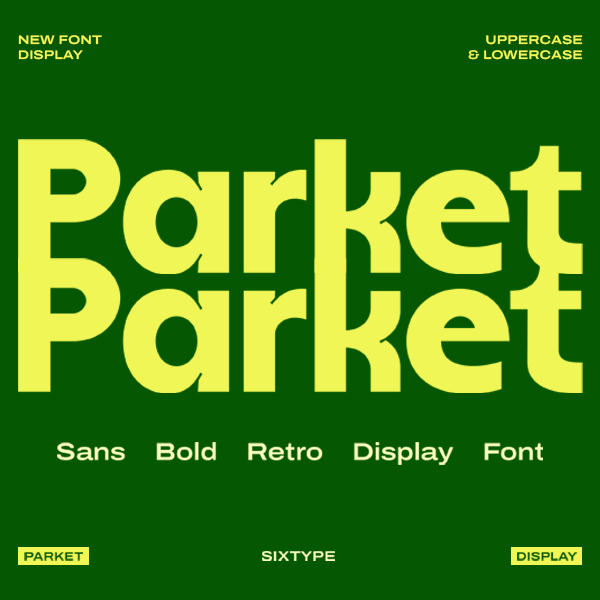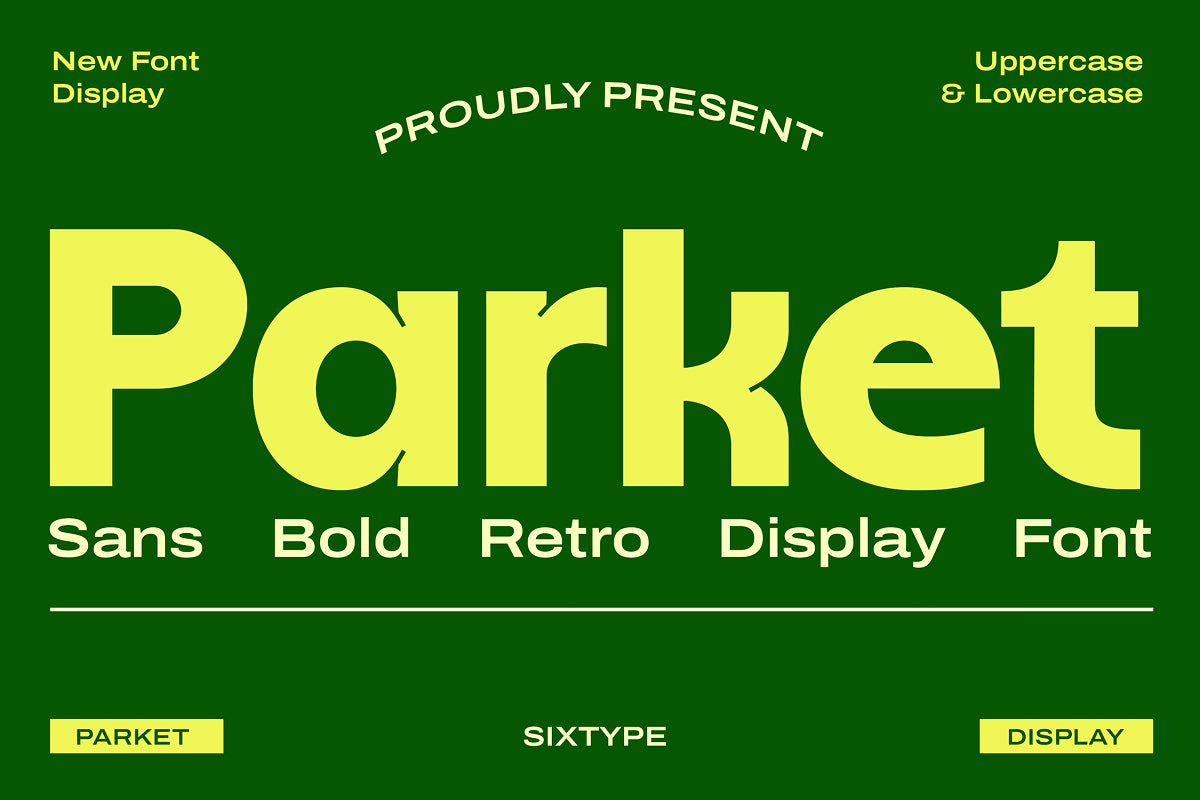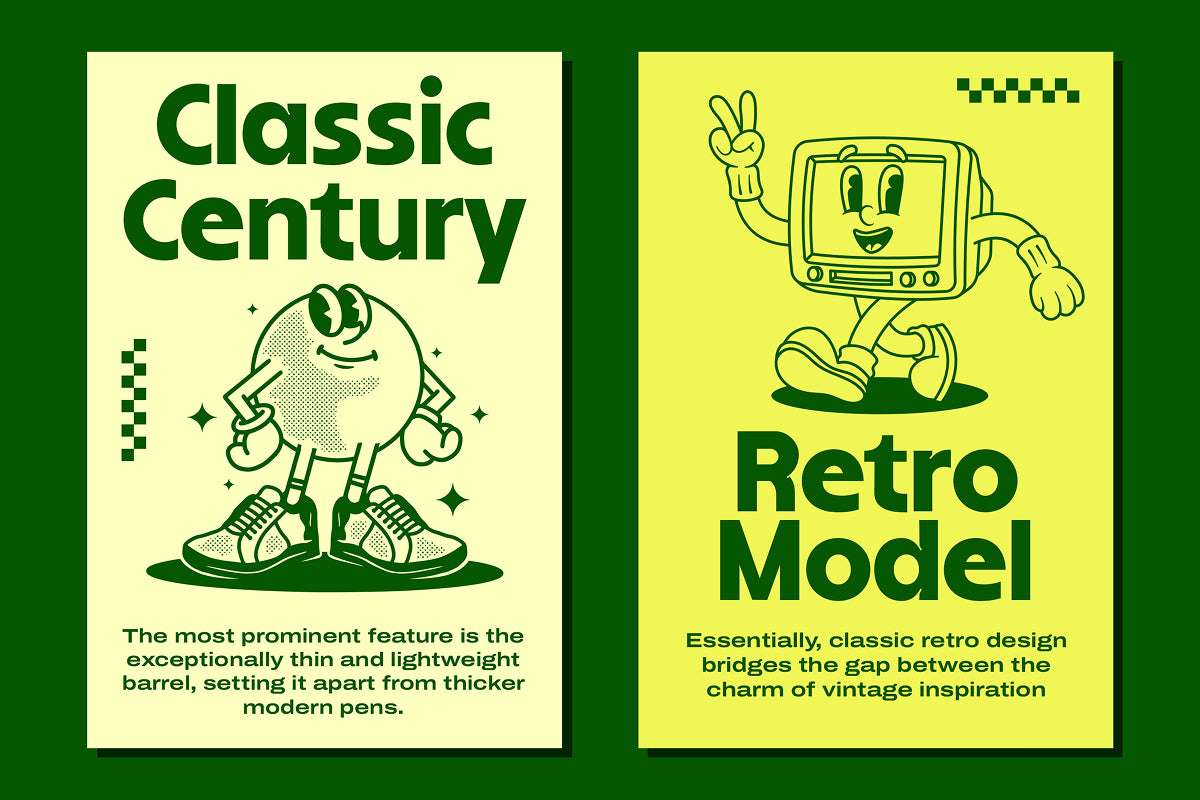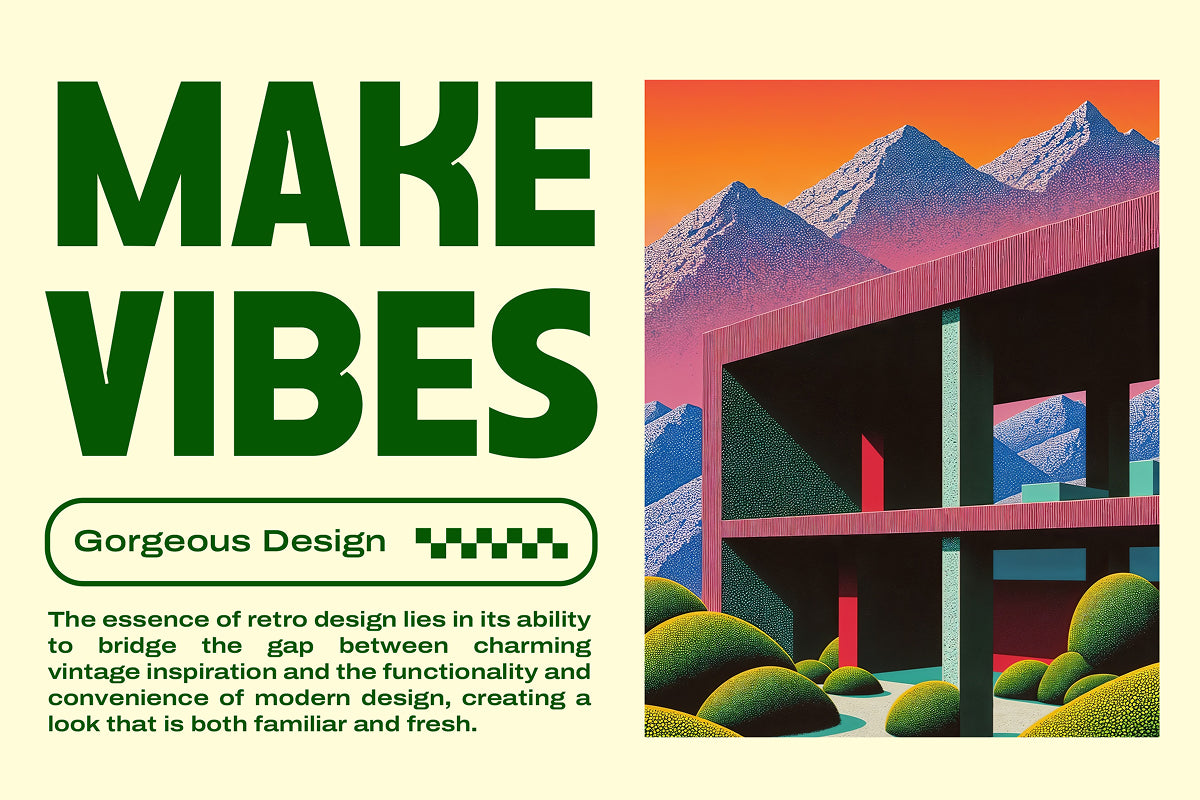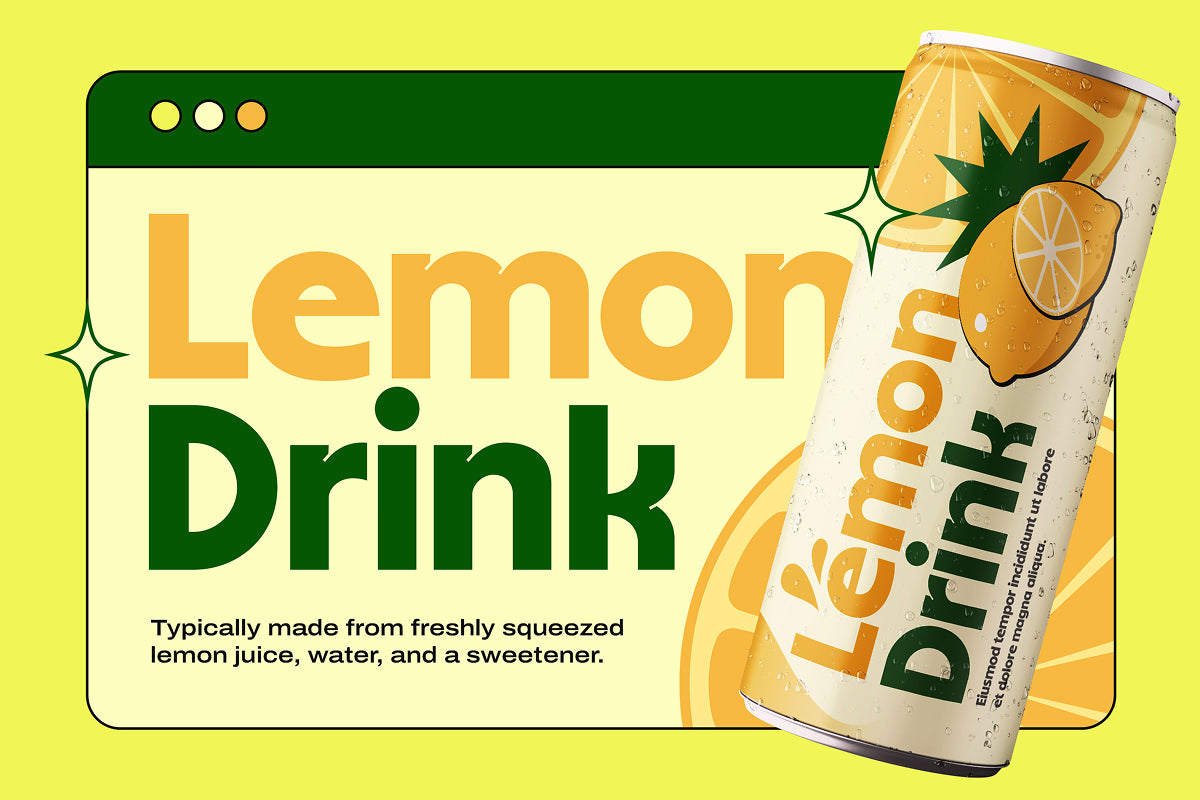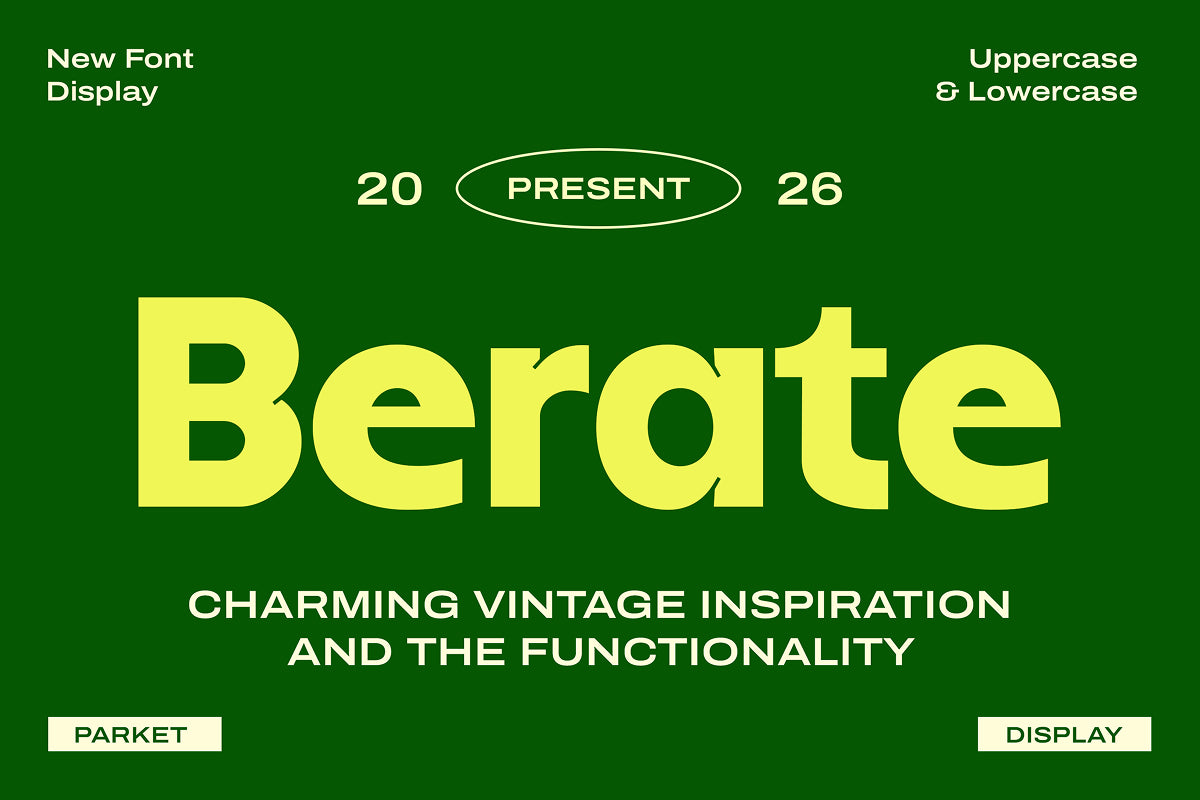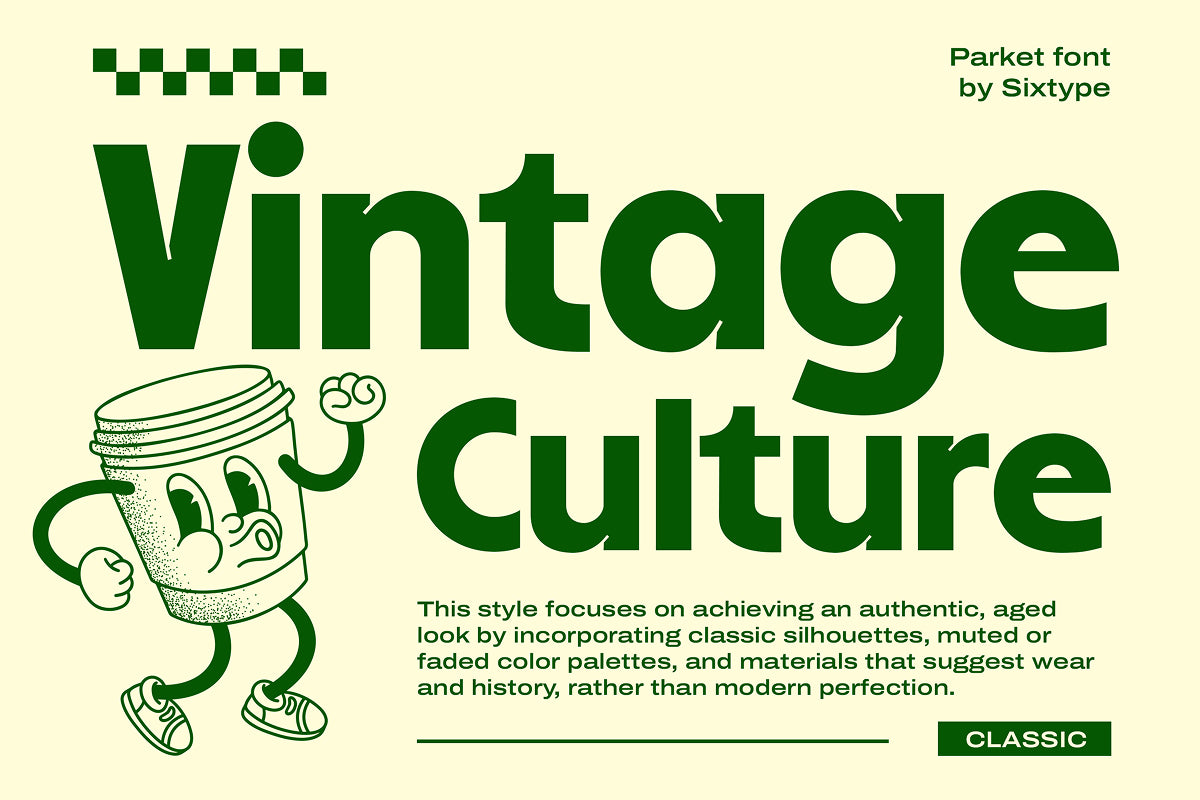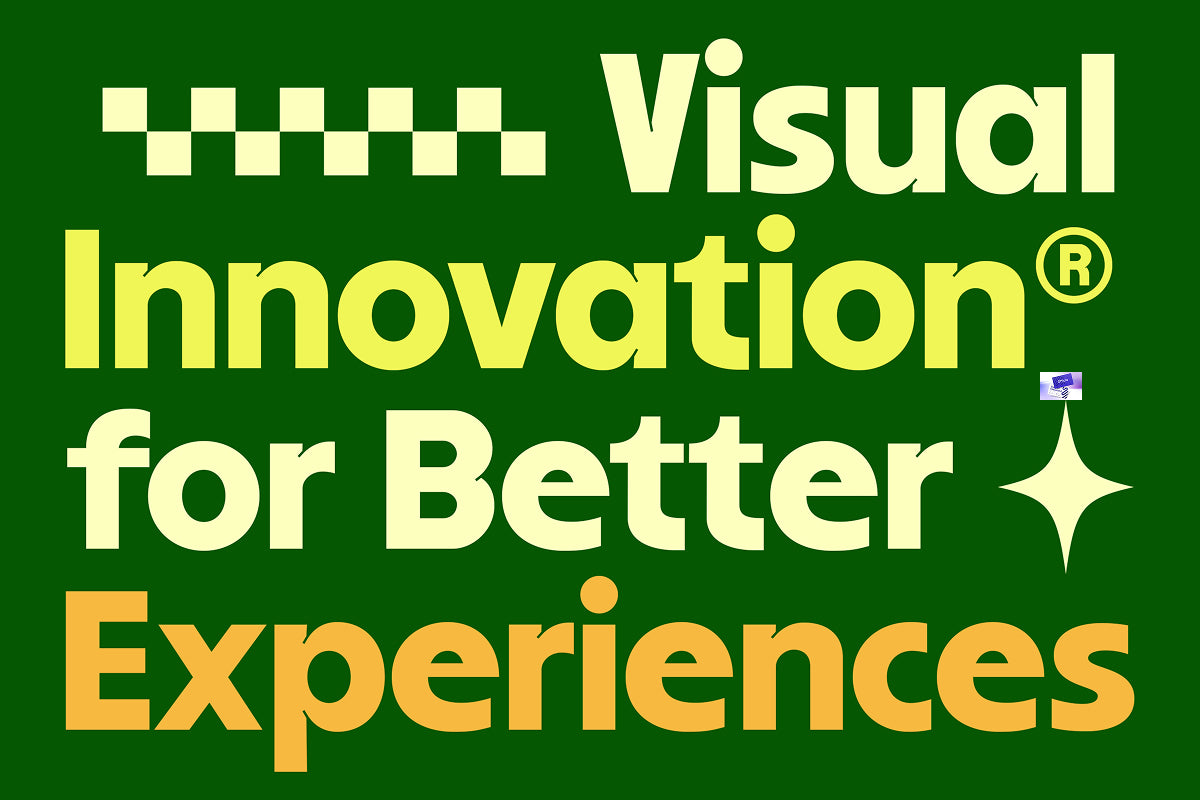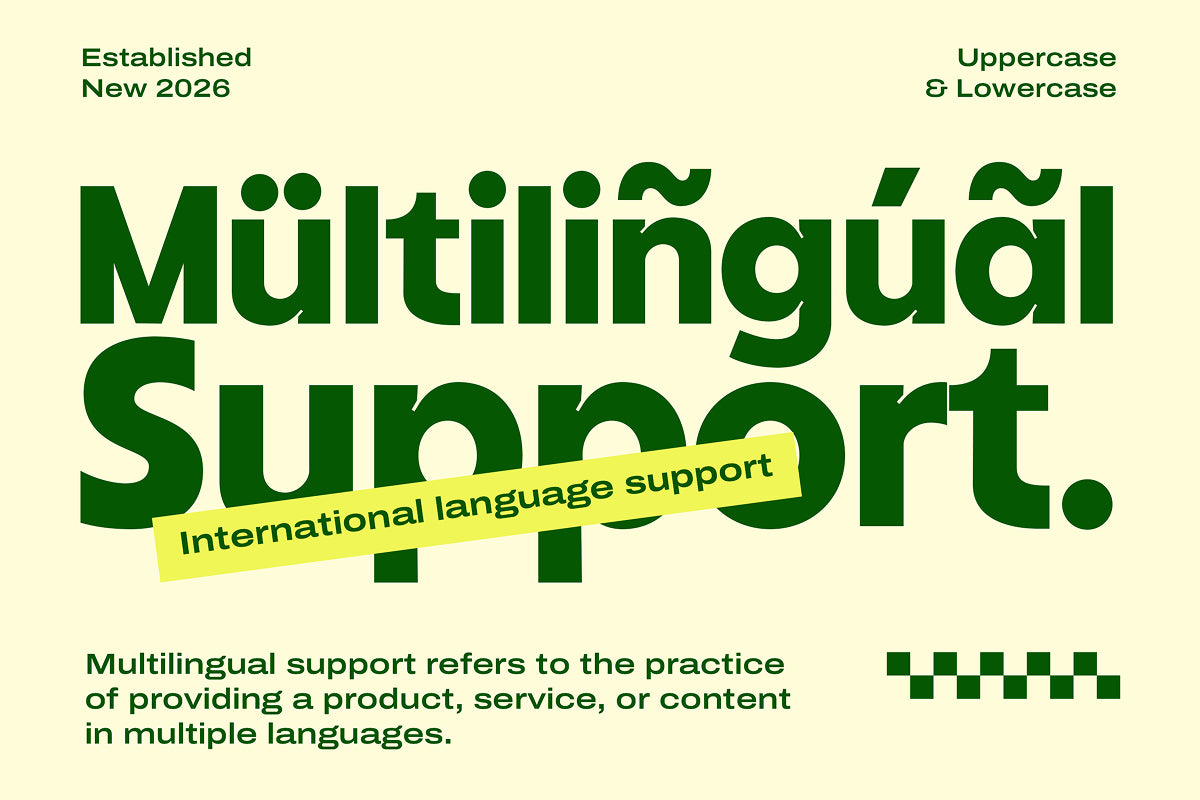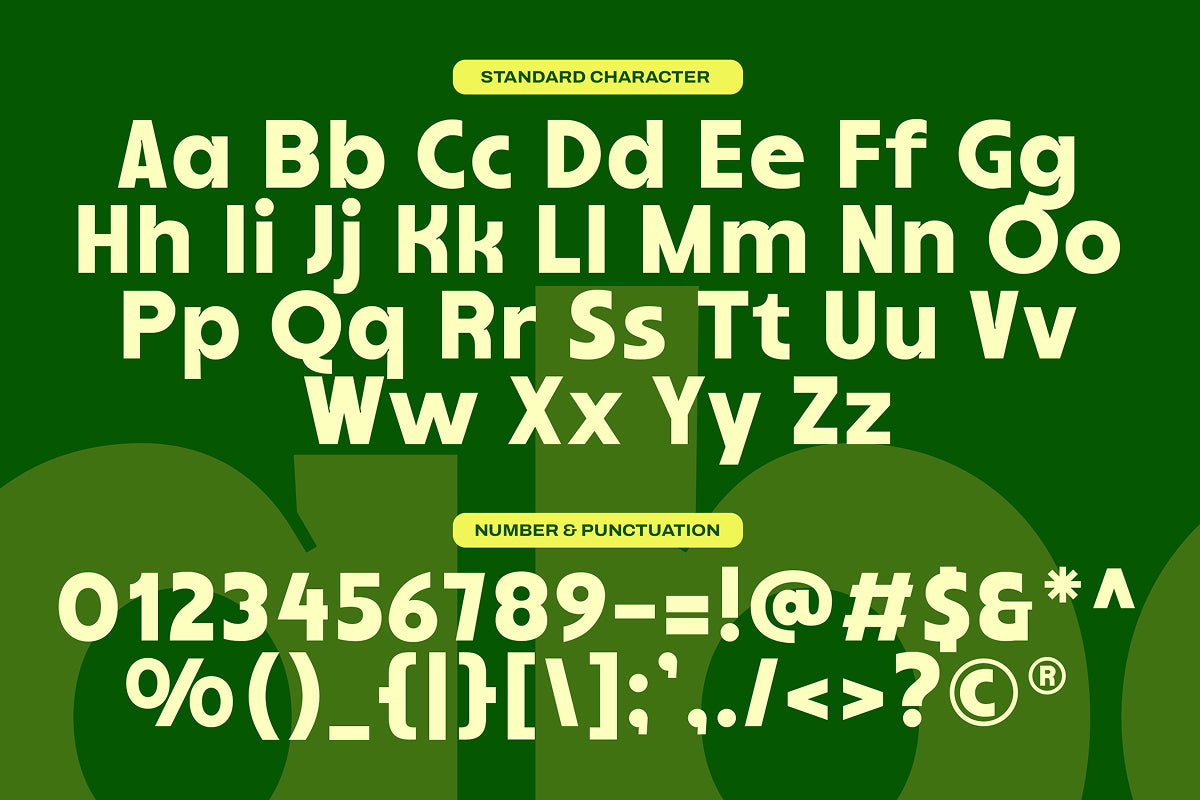
Parket Retro Display Font
Parket is a bold display font with clean, structured letterforms and confident proportions, built to hold its own at large sizes. The shapes stay sturdy and upright, giving it a strong graphic presence without leaning into playful or decorative detail. It reads clearly from a distance, whether that's a poster headline or a logo mark.
That solid, straightforward structure is where Parket does its best work. It's built for headlines and standalone statements rather than long stretches of body copy, holding its shape and weight cleanly at any size. The clean geometry keeps it versatile across a range of styles, from modern branding to bold editorial use.
Picture Parket heading up a bold logo lockup, stamped across a poster headline, or anchoring a modern brand mark. That's where its character really lands.
Parket suits logo design and branding, poster and headline typography, packaging design, editorial headlines, and social media graphics that want a bold, confident statement.
Multilingual support covering English, Spanish, German, Italian, Portuguese, French, and core Western European Latin characters.